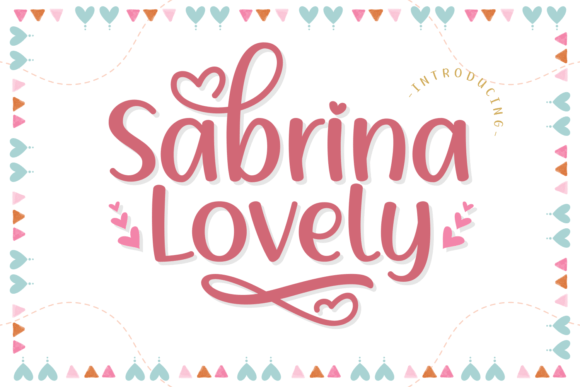
Introducing Sabrina Lovely Font, the ultimate script font that will take your projects to new heights! Created by the talented designer Situjuh, this font boasts a romantic and attractive aesthetic that is simply irresistible. Whether you're designing a shirt or working on a Cricut project, Sabrina Lovely is the perfect choice.
With its PUA encoding, accessing all the special characters and ligatures has never been easier. Say goodbye to limitations and let your creativity flow freely. This font empowers you to add a refined and distinctive touch to any project, making it stand out from the crowd.
Sabrina Lovely Font is more than just a font - it's an experience. Its captivating curves and elegant strokes evoke a sense of beauty and sophistication, leaving a lasting impression on anyone who lays eyes on it. The moment you download and use this font, you'll instantly elevate your designs to a whole new level.
Imagine the impact of using Sabrina Lovely Font on your shirt designs. From catchy slogans to intricate illustrations, this font will transform your shirts into wearable pieces of art. It's the best font for shirt designs, guaranteed to turn heads and make a statement.
But it doesn't stop there. Sabrina Lovely Font is also a game-changer for Cricut projects. Its versatility allows you to create stunning vinyl decals, personalized gifts, and so much more. Let your imagination run wild and watch as this font brings your ideas to life with unparalleled beauty.
Don't settle for ordinary fonts when you can have extraordinary. Sabrina Lovely Font is the missing piece in your creative arsenal, ready to add that wow factor to every project. Say goodbye to boring and hello to captivating. Download Sabrina Lovely Font now and embark on a journey of endless possibilities.